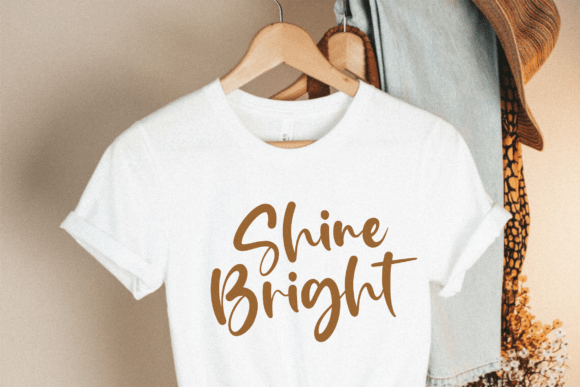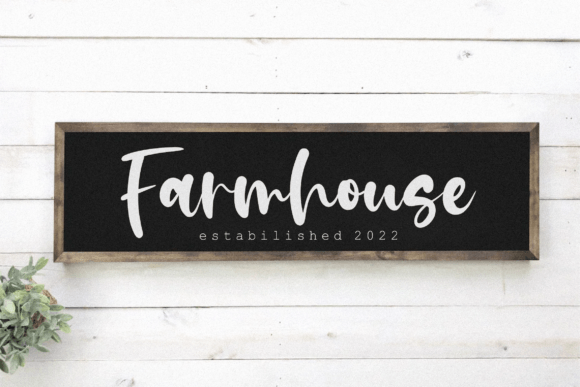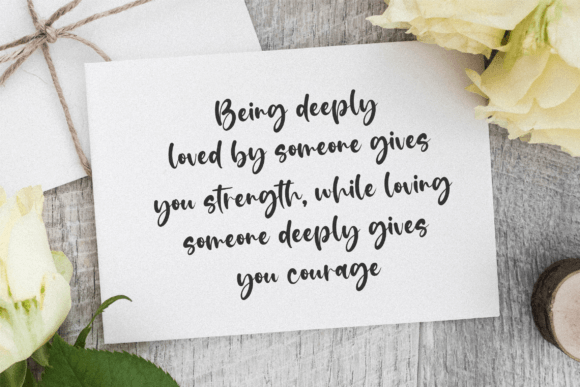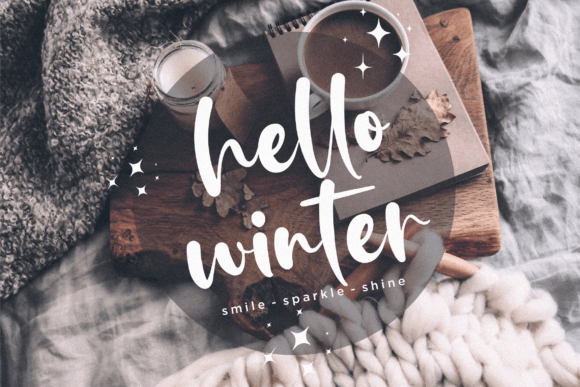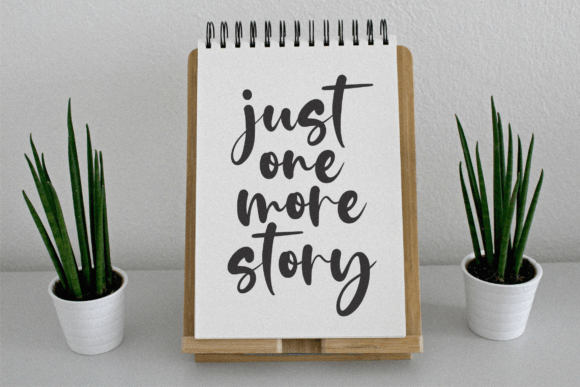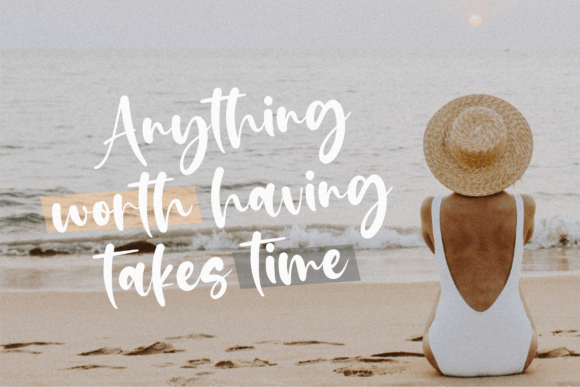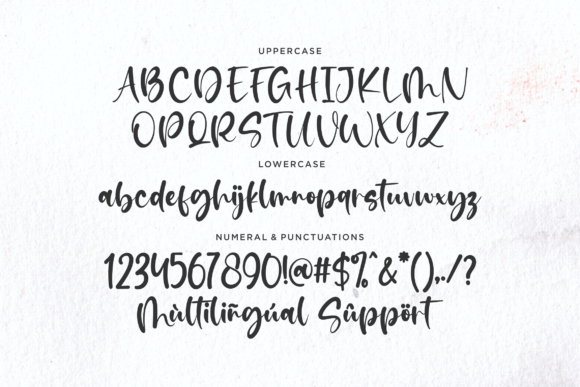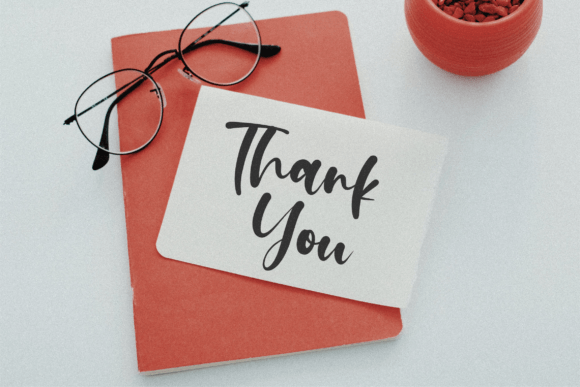
Bridesgirl Font
About Bridesgirl Font
Bridesgirl Font is an elegant handwritten script typeface crafted to add a personal and charming touch to your creative projects. Its flowing and natural style makes it perfect for product packaging, branding, magazine layouts, social media content, weddings, and any design that requires expressive handwritten text.
Elegant and Expressive Handwritten Design
Bridesgirl features smooth, stylish letterforms that bring warmth and sophistication to your designs. Its versatility allows it to shine in both formal and casual projects, enhancing the personality and appeal of your work.
Ideal Uses for Bridesgirl Font
This font is perfect for:
• Wedding invitations and event stationery
• Product packaging and labels
• Branding and logos
• Magazine layouts and editorial design
• Social media graphics and posts
• Expressive text overlays on backgrounds
Bridesgirl adds elegance and expressiveness to diverse creative applications.
Why Choose Bridesgirl Font?
Designers value Bridesgirl for its:
• Elegant and natural handwritten style
• Clear, readable letterforms
• Versatility across print and digital media
These features make Bridesgirl a practical and stylish font choice.
Add Warmth and Personality to Your Designs
Typography shapes the tone of your project. Bridesgirl adds warmth, charm, and personality, helping your designs connect emotionally with your audience. Whether for weddings, branding, or editorial use, this font enriches your creative vision.
In conclusion, Bridesgirl Font is an elegant and expressive handwritten script perfect for designers seeking a warm and stylish font. Add Bridesgirl to your font collection to create memorable and beautiful designs.